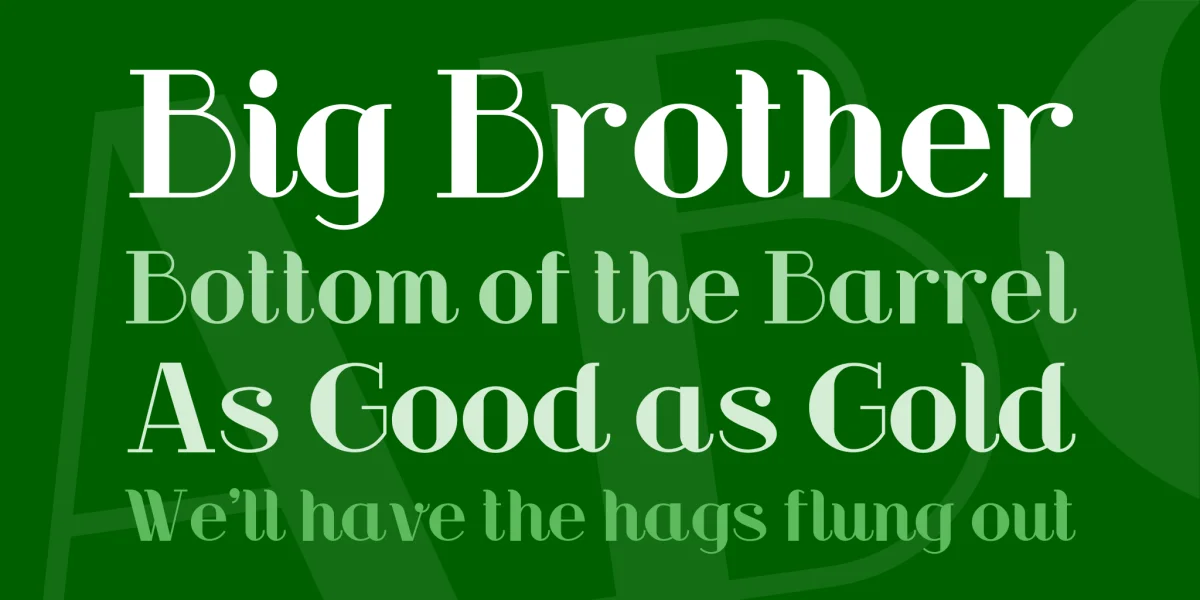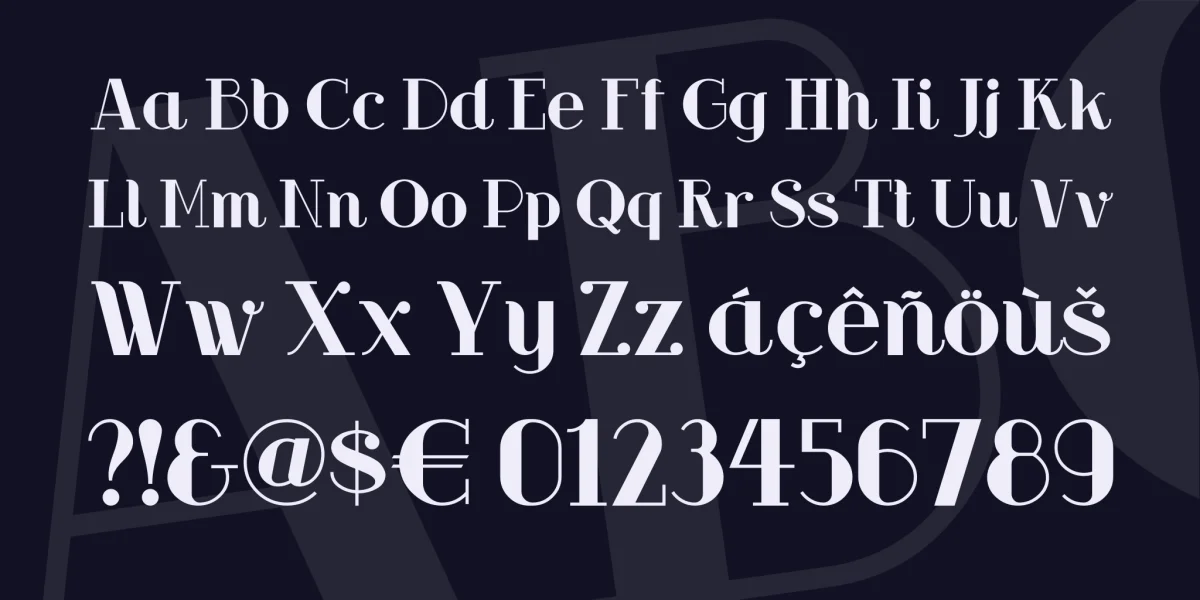
Strange as it may seem, the inspiration for this font came from an offering called Cupola, which I found on a Japanese website. Its source may be modern-day Japan, but a particular element of the font — the swoopy over and under serifs — struck me as pure Otto Heim. I incorporated that charming element into a new font, and here’s the result.